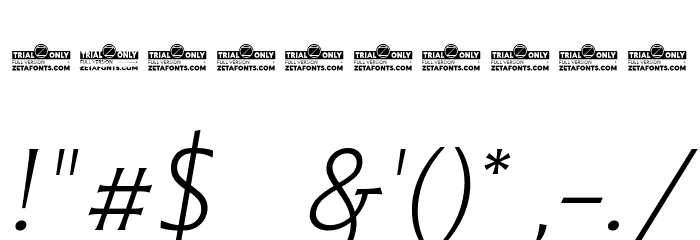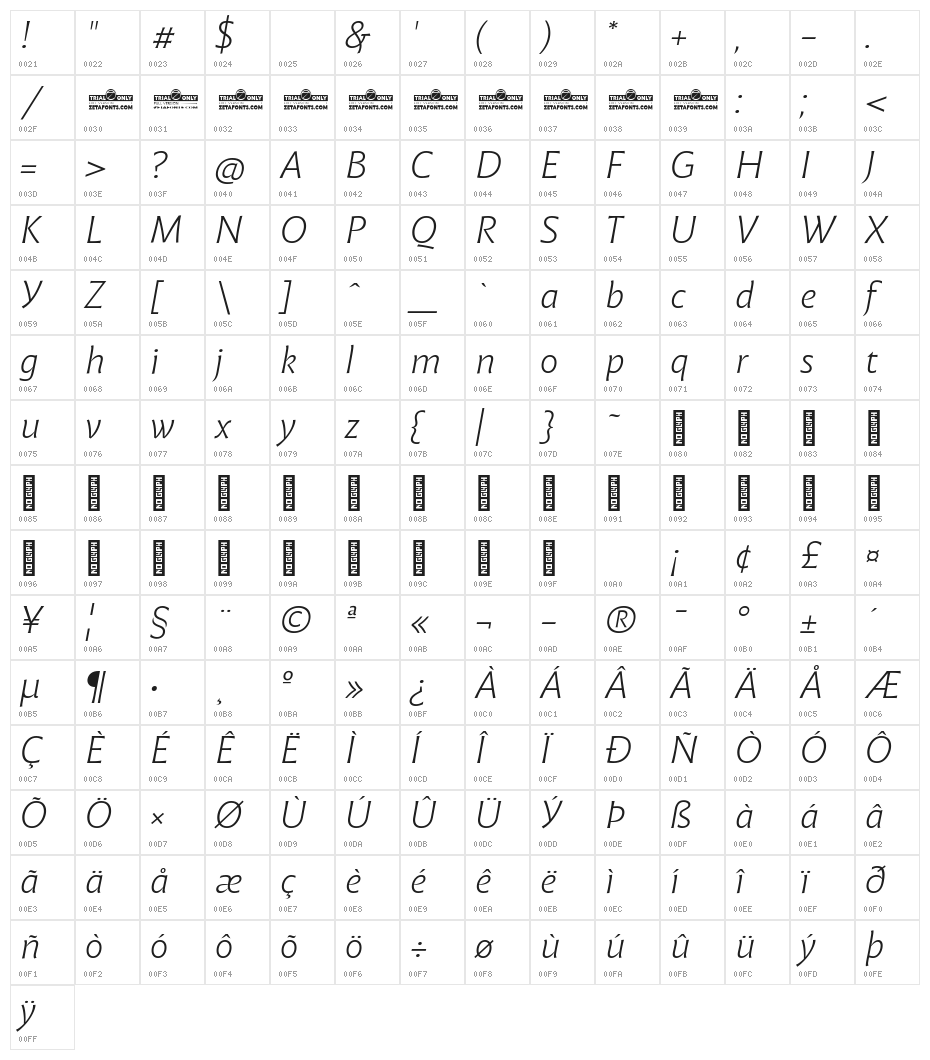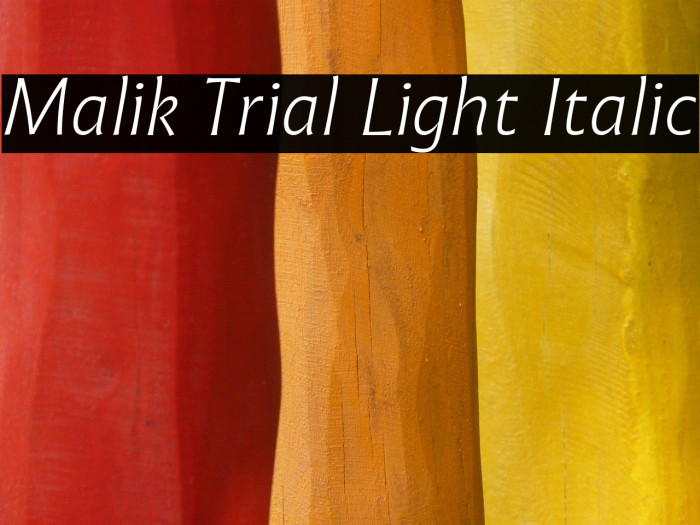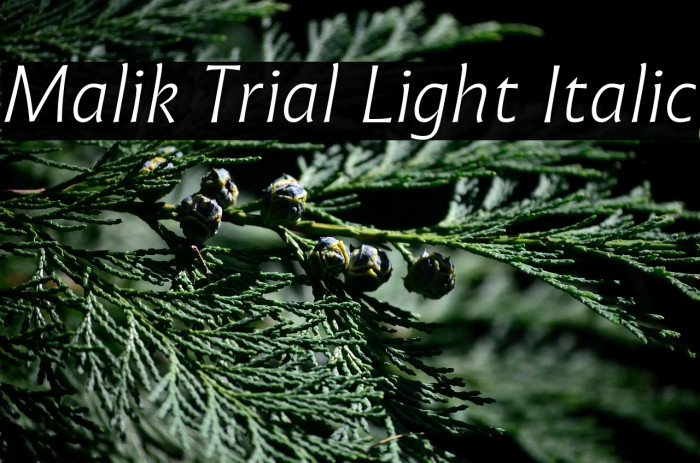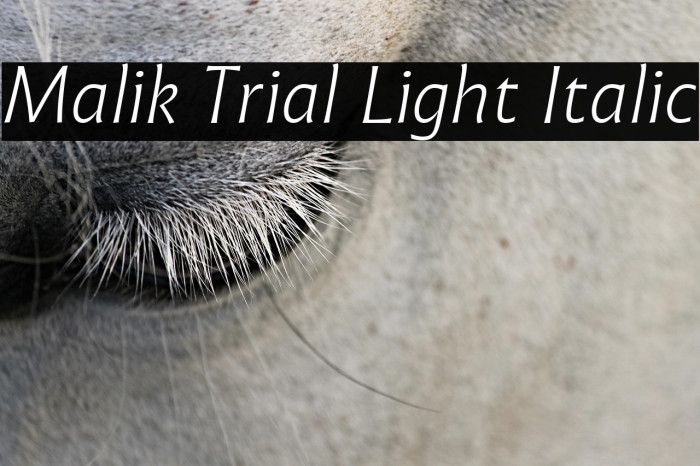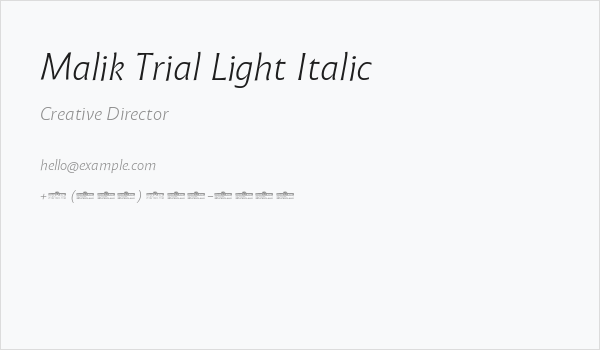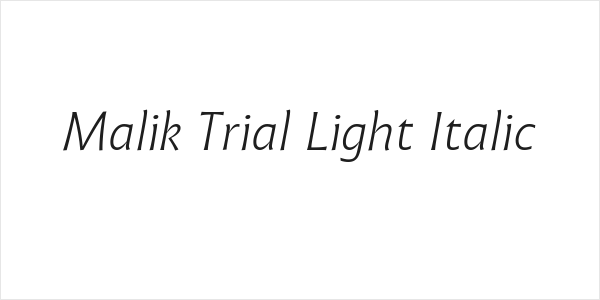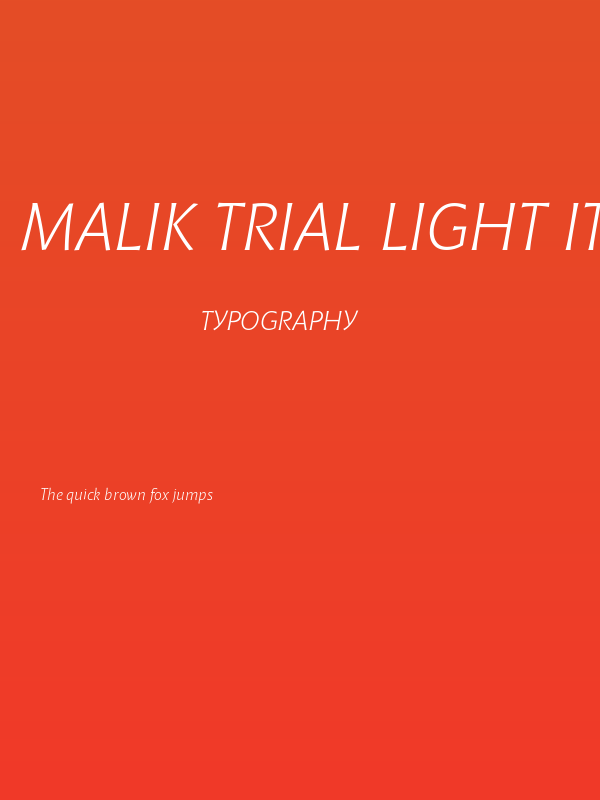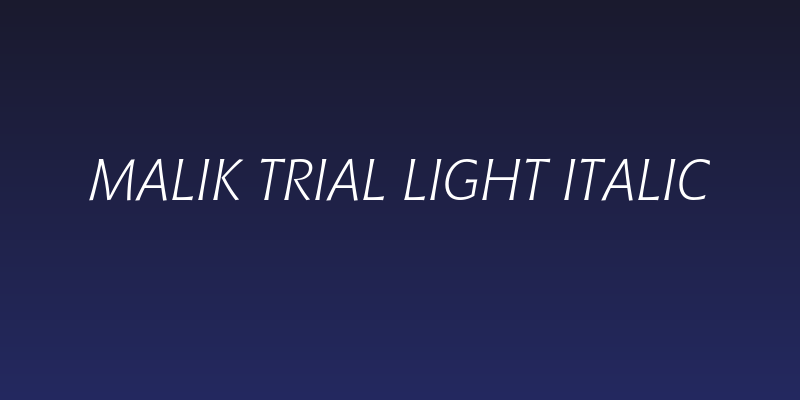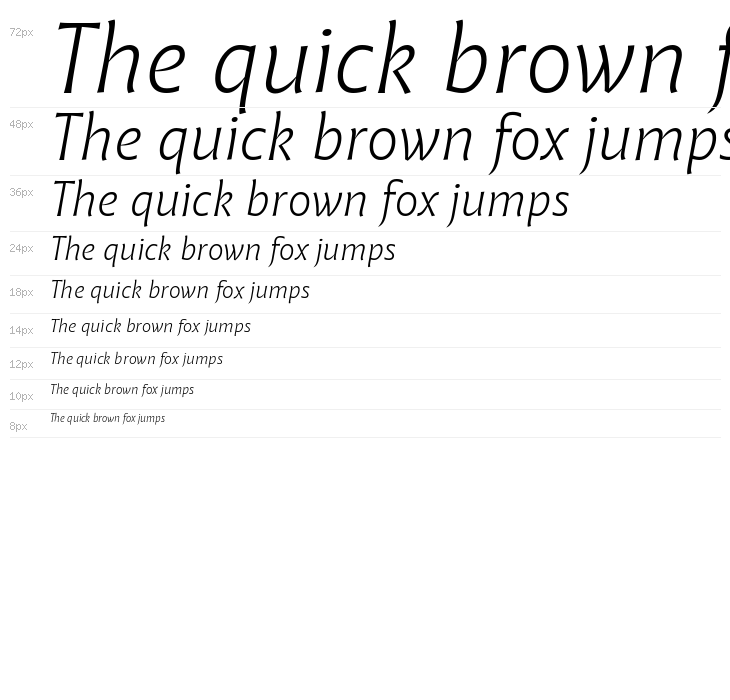
Malik Trial Light Italic Font
Malik Trial Light Italic Description
This font exhibits a refined and elegant style with a slight slant, indicative of its italic nature. The characters are crafted with a light weight, providing a sense of delicacy and sophistication. The strokes are smooth and consistent, with a medium contrast that enhances readability while maintaining a stylish appearance. The overall design is modern, yet it retains a classic touch, making it versatile for various applications. The spacing between characters is normal, ensuring clarity and legibility across different text sizes.
| Proposed Projects | Ideal for projects requiring a touch of elegance, such as wedding invitations, high-end branding, or editorial design. |